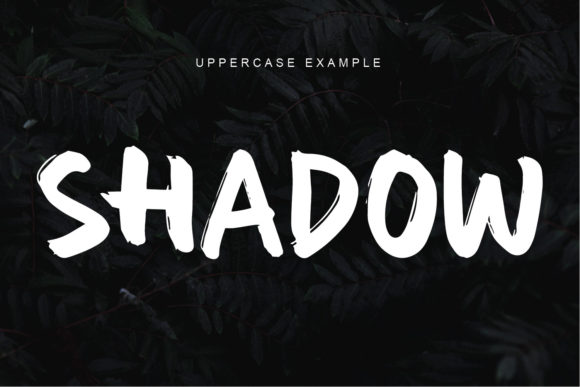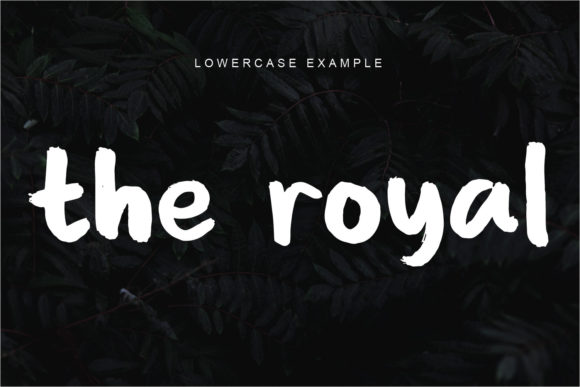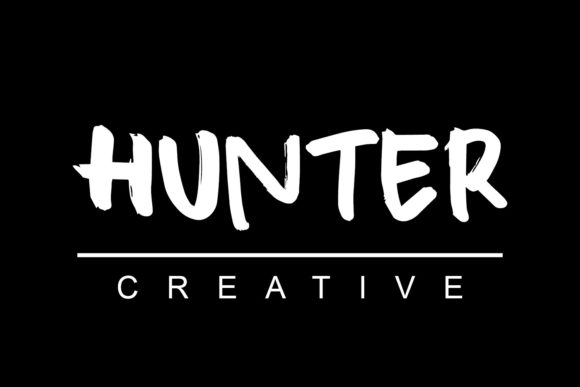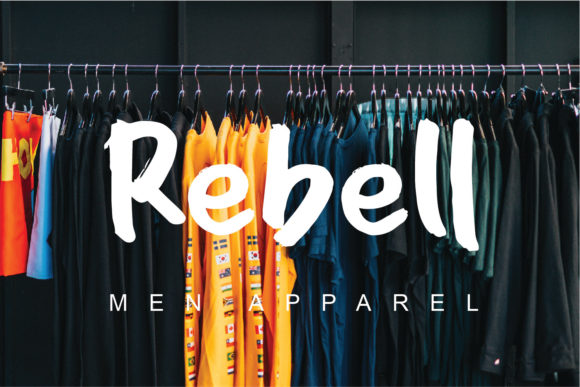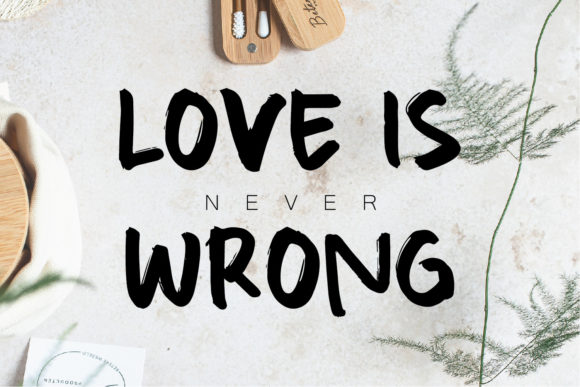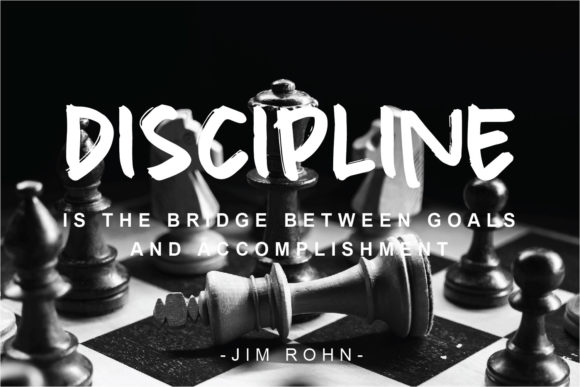
Introduction to Shouter Font
Have you ever found yourself staring at a blank canvas, desperately searching for that perfect font to bring your creative project to life? The struggle is real, but today we’re excited to introduce you to a game-changing design resource that’s about to revolutionize your workflow: the Shouter Font.
With its edgy street art vibe, this awesome display font is the ultimate addition to any designer’s toolkit. Whether you’re working on a t-shirt design, a sportswear logo, or an advertisement, the Shouter Font is the perfect choice to give your project that extra oomph. Plus, with a transparent background option, you can easily integrate it into any design without worrying about background distractions.
As a valuable resource for designers, the Shouter Font offers high-quality graphics that can be downloaded for free, making it an unbeatable asset for any creative endeavor. Get ready to take your designs to the next level with the Shouter Font – a must-have for any serious designer.
Key Features of Shouter Font
- High-quality design resource ideal for creative projects, offering a unique and attention-grabbing font style.
- Comes in a single weight, making it a versatile design resource for various creative projects, from logos to typography-based designs.
- Perfect for designers looking for a bold and eye-catching font to add a creative touch to their projects, making it a valuable design resource.
Honest Review: Shouter Font
As a designer, I’m always on the lookout for high-quality design resources to elevate my creative projects. Recently, I had the chance to work with the Shouter Font, and I’m excited to share my honest review with you.
What works well: ✨ The Shouter Font is incredibly versatile and can be used for a wide range of creative projects, from bold headlines to eye-catching titles. Its unique design makes it perfect for adding a touch of personality to your work. Additionally, it’s available for free download, which is a huge plus for designers on a budget.
What doesn’t work well: ⚠️ One of the main limitations of the Shouter Font is that it doesn’t come with a transparent background option, which can make it difficult to use in certain design scenarios. This might be a deal-breaker for some designers who rely heavily on transparent backgrounds in their work.
Overall impression: I was really impressed with the Shouter Font, and I think it’s a great addition to any designer’s toolkit. While it may have some limitations, its versatility and high-quality design make it a valuable resource for creative projects.
Here are some key features to consider:
- Versatile font suitable for various creative projects
- No transparent background option available
How to Use Shouter Font
The Shouter Font is a unique and eye-catching design resource that can elevate any creative project. With its bold and vibrant style, it’s perfect for making your designs stand out.
Tips for Getting the Most Out of Shouter Font
To get the most out of the Shouter Font, try using it in combination with a transparent background to make your designs stand out. You can also experiment with different font sizes and colors to create a unique and eye-catching look.
The Shouter Font is perfect for a variety of creative projects, including social media graphics, blog posts, and even presentations. It’s also great for creating eye-catching headings and titles that grab the reader’s attention.